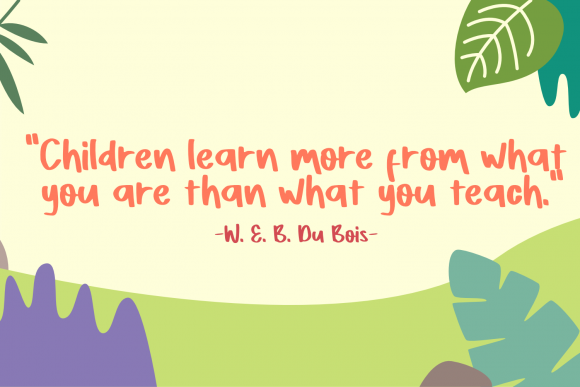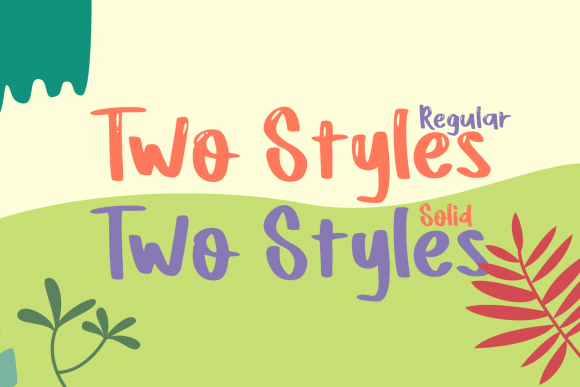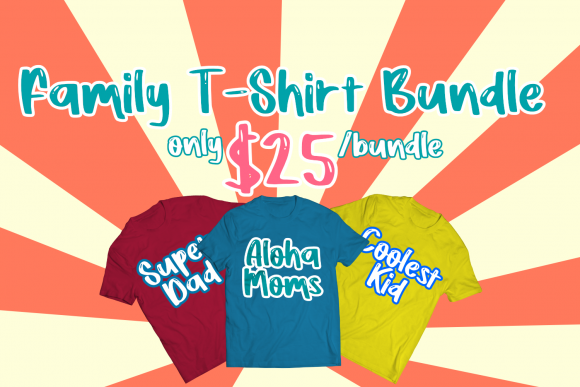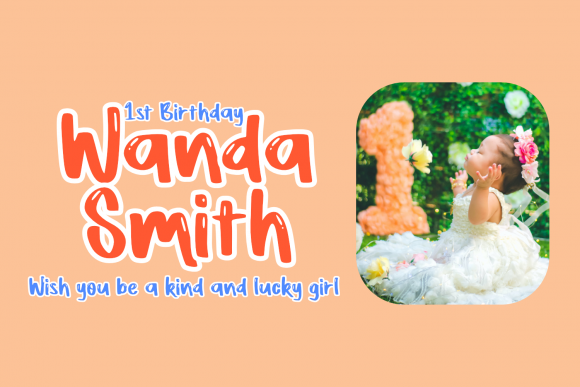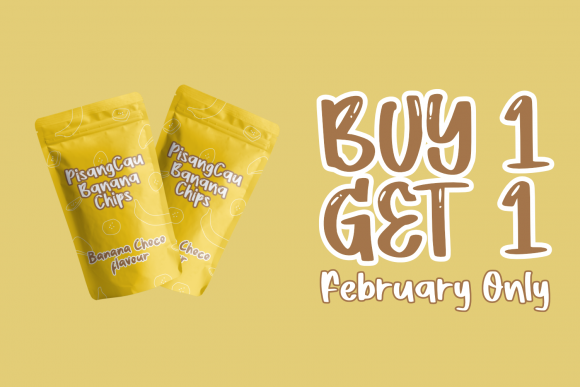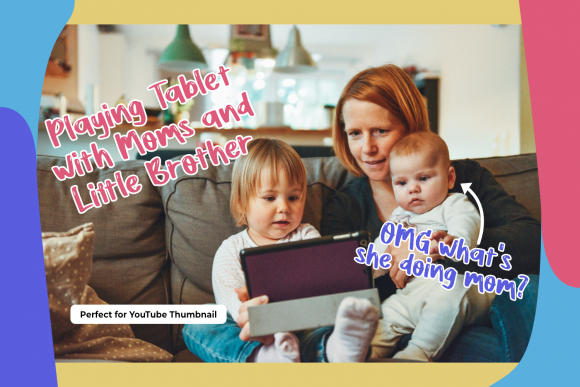
The Birth of a Trendy Design
It’s that moment when the creative juices start flowing, and your design ideas begin to take shape. You’ve got a concept in mind, a message to convey, and a blank canvas waiting to be transformed. But, the right font can make all the difference. Imagine you’re designing a vibrant poster for a summer festival, and you need a typeface that captures the carefree spirit of the occasion. That’s where the Aloha Obelic Font comes in – a cool and bubbly display font that’s sure to bring your design to life.
Whether you’re a seasoned designer or just starting out, the Aloha Obelic Font is a valuable addition to your toolkit. Its perfect blend of trendiness and readability makes it an ideal choice for a wide range of projects, from social media graphics to advertising campaigns. With the Aloha Obelic Font, you can add a touch of personality and whimsy to your designs, making them truly unforgettable.
Aloha Obelic Font Key Features
- Font Family: Aloha Obelic is a unique, handwritten font family with a tropical twist.
- Size: The font family includes a range of weights from Thin (100) to Black (900), with corresponding font sizes to suit various design needs.
- Resolution: Designed to work well at high resolutions, making it ideal for use in digital media, including web design, social media, and print materials.
- Unique Characteristics: Aloha Obelic features a distinctive, hand-drawn feel with subtle imperfections, giving it a charming and authentic look.
Aloha Obelic Font Review
Overall, I’d say the Aloha Obelic Font is a lovely, tropical addition to any design project. ✨ I appreciate the unique blend of modern and vintage elements that gives it a distinct character.
The font’s open and airy feel makes it perfect for creating a laid-back, beachy vibe. ✨ I’ve used it in a few projects where I wanted to evoke a sense of relaxation and tranquility, and it’s worked beautifully.
- Unique blend of modern and vintage elements
- Open and airy feel
- Perfect for creating a laid-back, beachy vibe
- May not be suitable for formal or professional projects
- Can be a bit difficult to read at very small font sizes
- Not as versatile as some other fonts in terms of styles and variations
Overall, I’d give the Aloha Obelic Font 4 out of 5 stars. It’s a great choice for projects where you want to evoke a relaxed, beachy feel, but may not be the best fit for more formal or complex designs.
The Aloha Obelic Font is perfect for:
- Beach-themed designs and branding
- Tropical and summer-themed events
- Travel and adventure branding